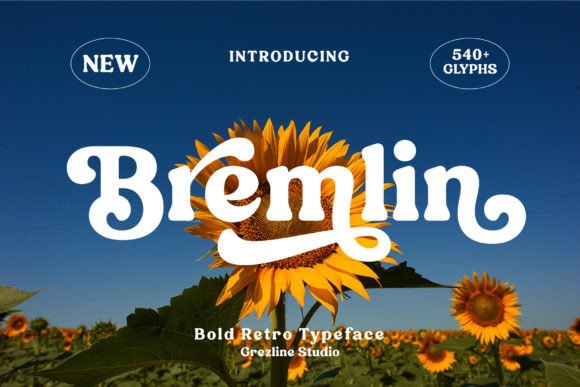
Introducing Bremlin - Bold Retro Font, the ultimate choice for designers who are looking for a bold, groovy, and retro font for their next project. Created by Grezline Studio, Bremlin is a stunning display font that comes with a lot of alternate glyphs, making it versatile and perfect for various design needs.
Bremlin is not just any font; it's a masterpiece that will take your design to the next level. With its bold and retro style, it's perfect for vintage design, but it's also suitable for modern and contemporary designs that need a touch of retro style. Bremlin is the perfect match for any design that requires a unique and eye-catching font.
Bremlin is not just a font; it's a work of art. Its unique style and attention to detail make it stand out from other fonts on the market. Bremlin is usable in a wide range of works, including logos, covers, posters, quotes, product packaging, merchandise, social media, and much more. With Bremlin, you can add a touch of retro style to any project and make it look exceptional.
Bremlin is not just a font; it's a statement. It's a font that speaks to the heart of retro lovers, designers, and anyone who wants to make their designs exceptional. With Bremlin, you can create designs that will make a lasting impression on your audience.
In conclusion, if you're looking for a bold, retro font that will take your design to the next level, Bremlin is the perfect choice. It's versatile, unique, and PUA encoded, making it easy to use and customize. With Bremlin, you can add a touch of retro style to any project and make it exceptional. Download Bremlin today and experience the magic of this stunning font!